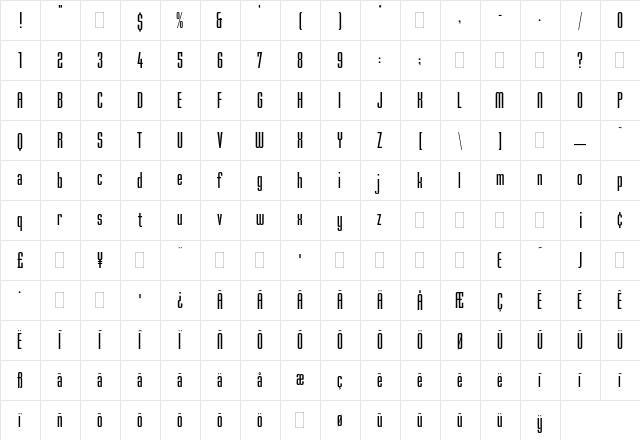
Mekanik Plain
Design Context for Mekanik Typeface
Mekanik takes a measured approach to typography — its balanced proportions and neutral character make it a reliable workhorse for both digital and print work.